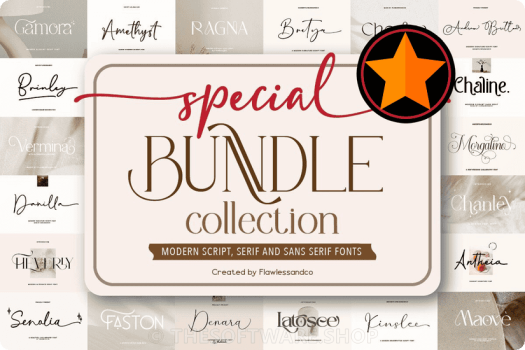
Special Font Bundle 6 – A Versatile Collection for Creative Professionals and Crafters
Typography plays a vital role in visual communication, and the Special Font Bundle 6 delivers a curated selection of 20 premium fonts designed to meet a wide range of creative needs. Whether you’re working on branding, apparel, invitations, or social media graphics, this bundle provides the flexibility and quality required to produce polished, professional results.
What’s Included in the Bundle?
This font bundle features a balanced mix of serif, sans serif, and script fonts. Each typeface is crafted by Flawless And Co, known for producing elegant and functional fonts that suit both modern and classic design styles.
Serif Fonts
Serif fonts are ideal for editorial layouts, logos, and formal branding. Their timeless structure adds credibility and sophistication to any project.
- Chanley
- Heverly
- Gamora
- Latosce
- Chestra
Sans Serif Fonts
Sans serif fonts offer clean lines and modern appeal. They are perfect for digital content, minimalist branding, and user interfaces.
- Chaline
- Vermina
- Ragna
- Maove
Script & Handwritten Fonts
Script fonts bring personality and elegance to invitations, apparel, and decorative signage. These fonts mimic natural handwriting and calligraphy, adding warmth and style.
- Senolia
- Morgalino
- Bretya
- Denara
- Amethyst
- Danilla
- Antheia
- Andrew Britton
- Brinley
- Kinslee
High-Quality Design
Each font is professionally designed with attention to detail. The characters are well-balanced, the kerning is optimized, and the styles are consistent across weights and formats.
Wide Range of Applications
Perfect for Designers, Crafters, and Small Businesses
Whether you’re a graphic designer working on client branding, a crafter creating personalized gifts, or a small business owner designing promotional materials, the Special Font Bundle 6 provides the tools to make your work more impactful.
The variety of styles ensures that you’ll always have the right font for the job. From bold and modern to elegant and handwritten, this bundle supports a wide range of creative expressions.
Examples of Use Cases
- Branding: Use serif and sans serif fonts for logos, business cards, and corporate identity.
- Invitations: Apply script fonts to wedding, birthday, and event invitations for a refined look.
- Apparel: Create stylish t-shirt designs using bold display or handwritten fonts.
- Social Media: Design engaging posts and stories with clean sans serif or expressive script fonts.
- Packaging: Add personality to product labels and packaging with unique typefaces.
Each font in the Special Font Bundle 6 is designed to be both functional and visually appealing. The bundle includes fonts with multilingual support, alternate characters, and stylistic sets, giving you more control over your typography.
Whether you’re working on a minimalist design or a vibrant, expressive layout, these fonts adapt to your needs and help you communicate your message clearly.